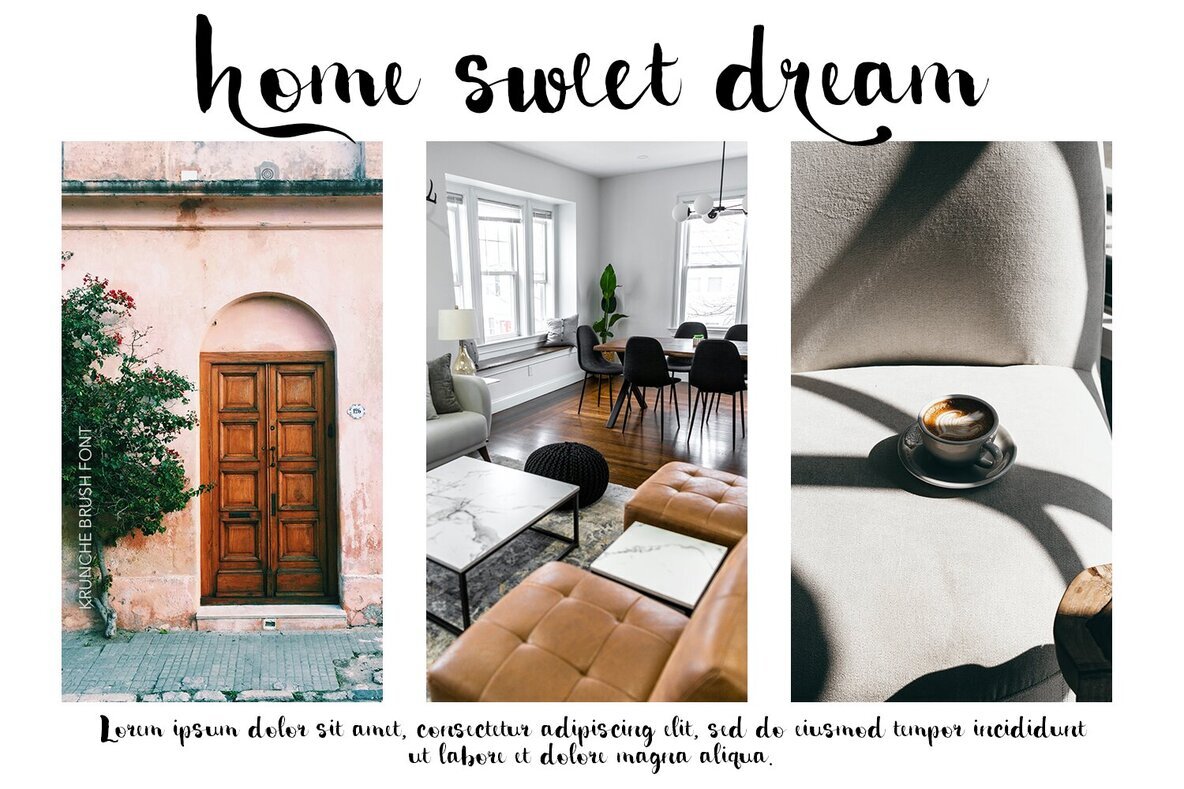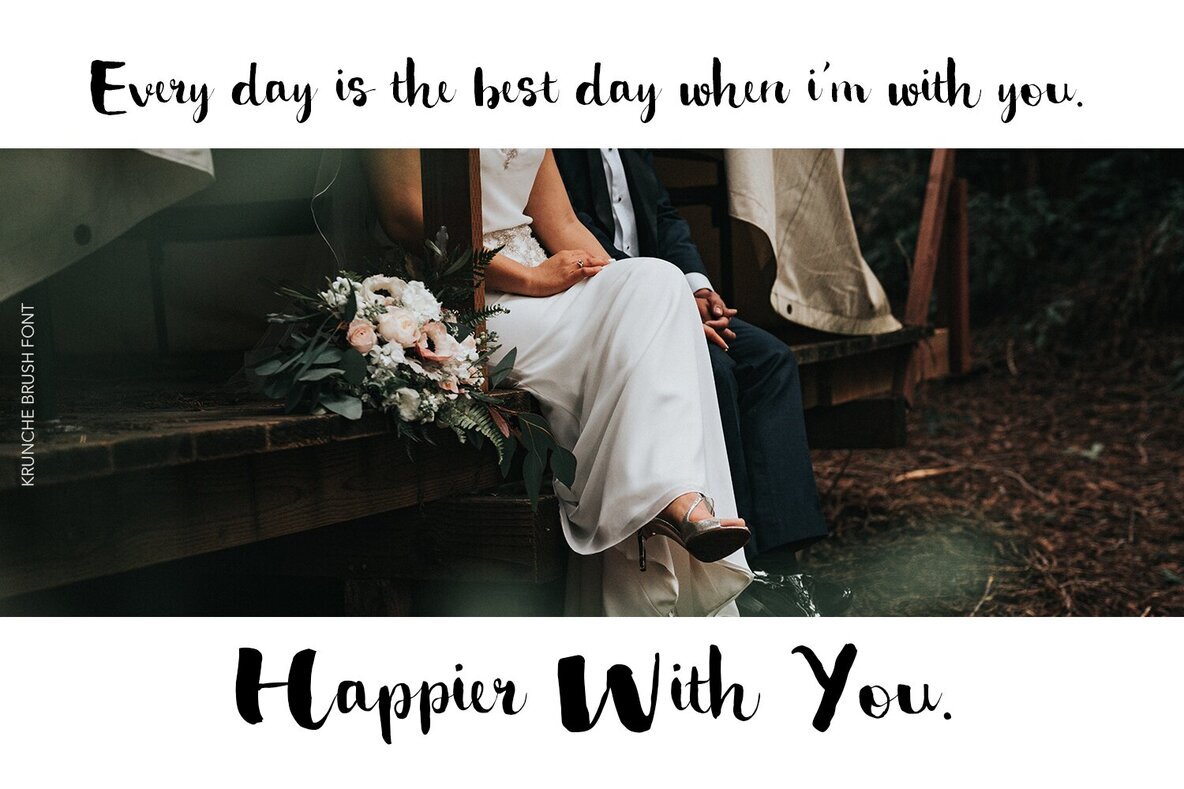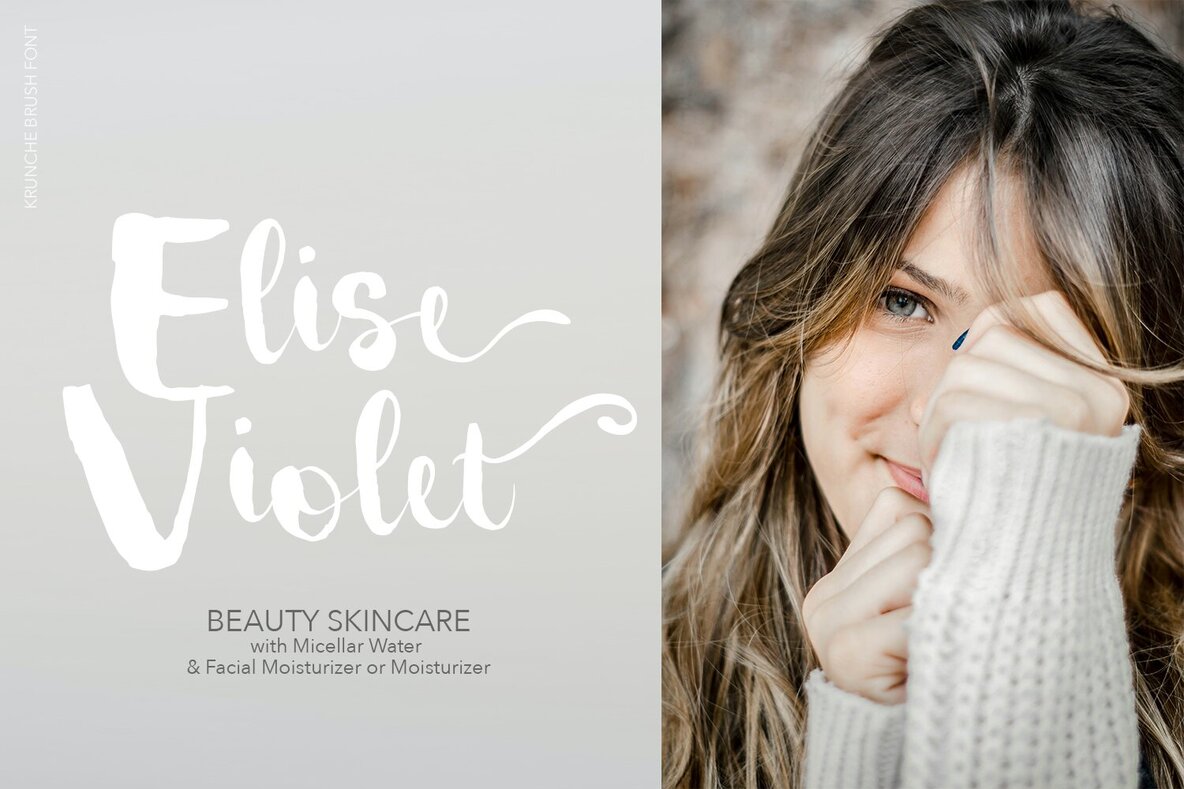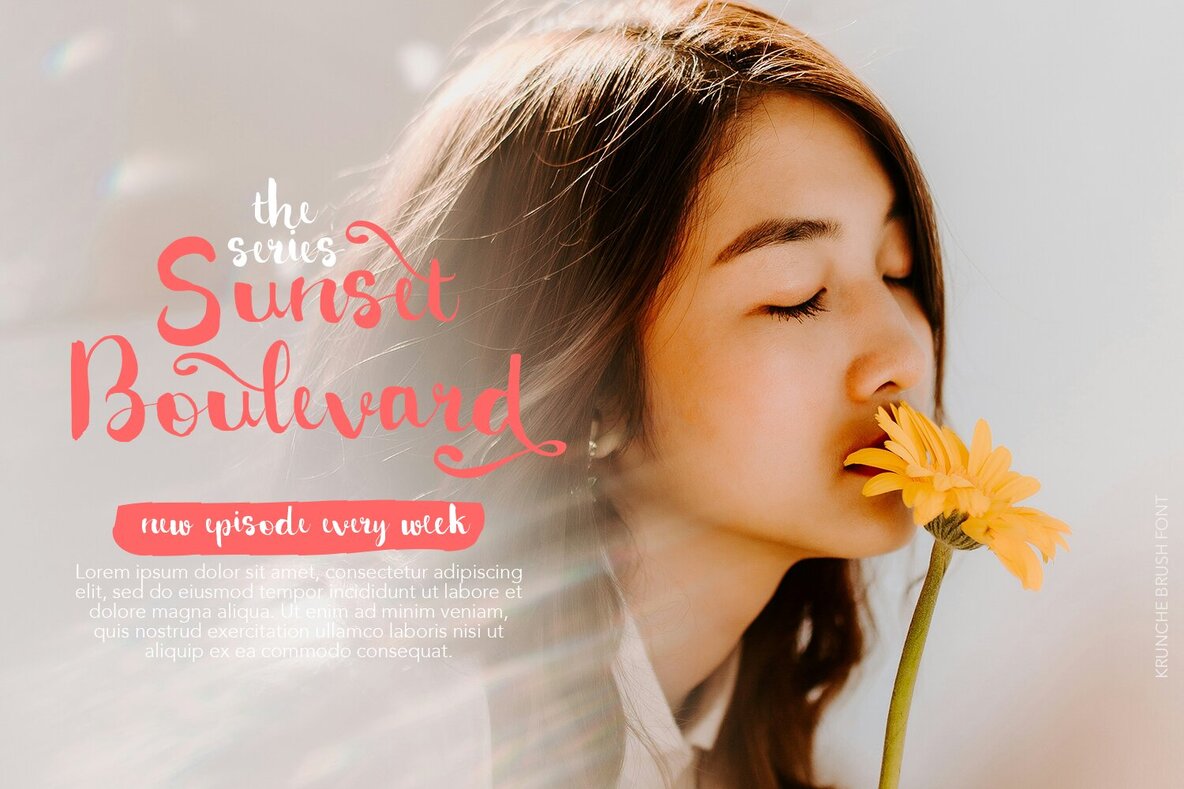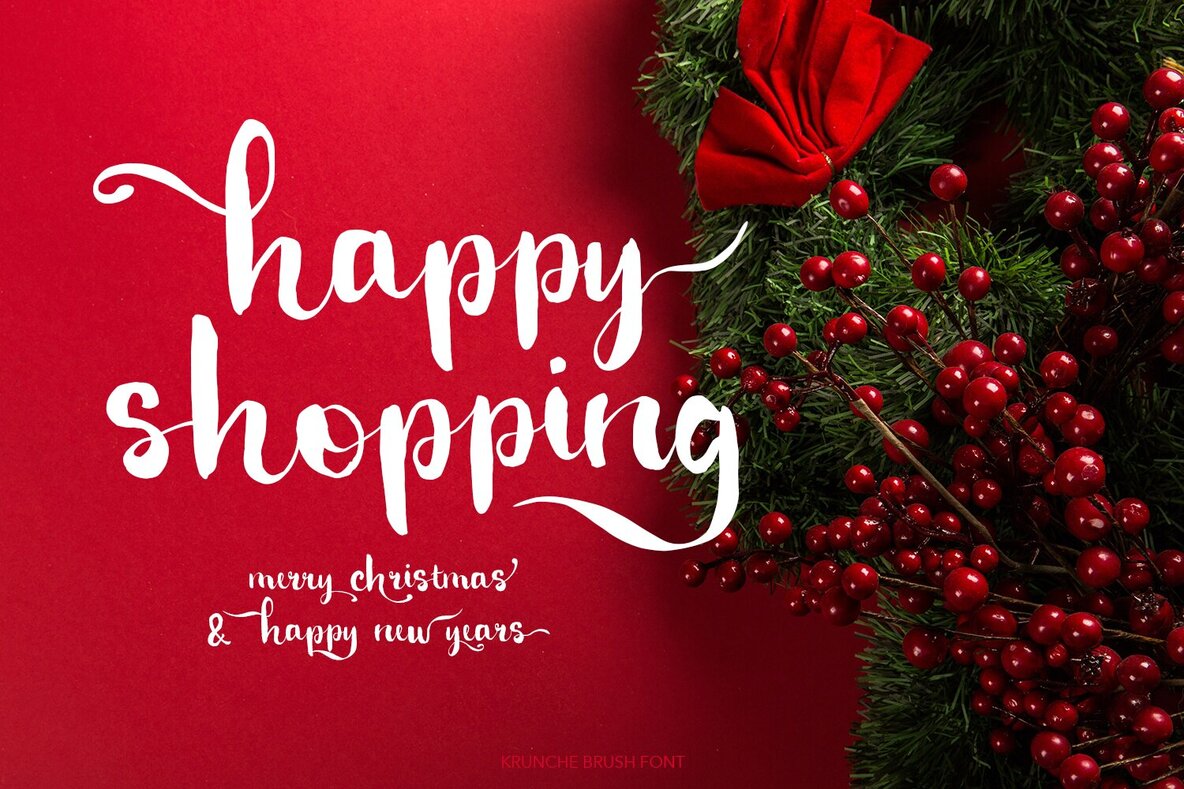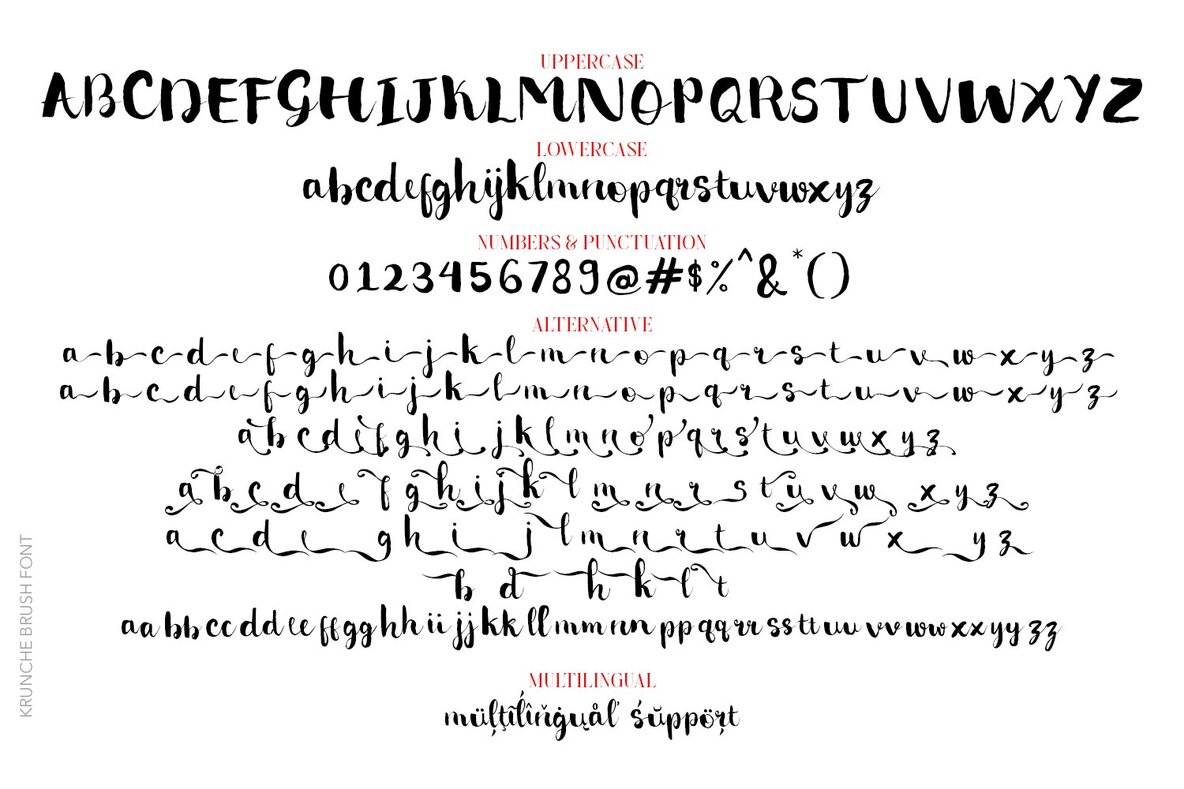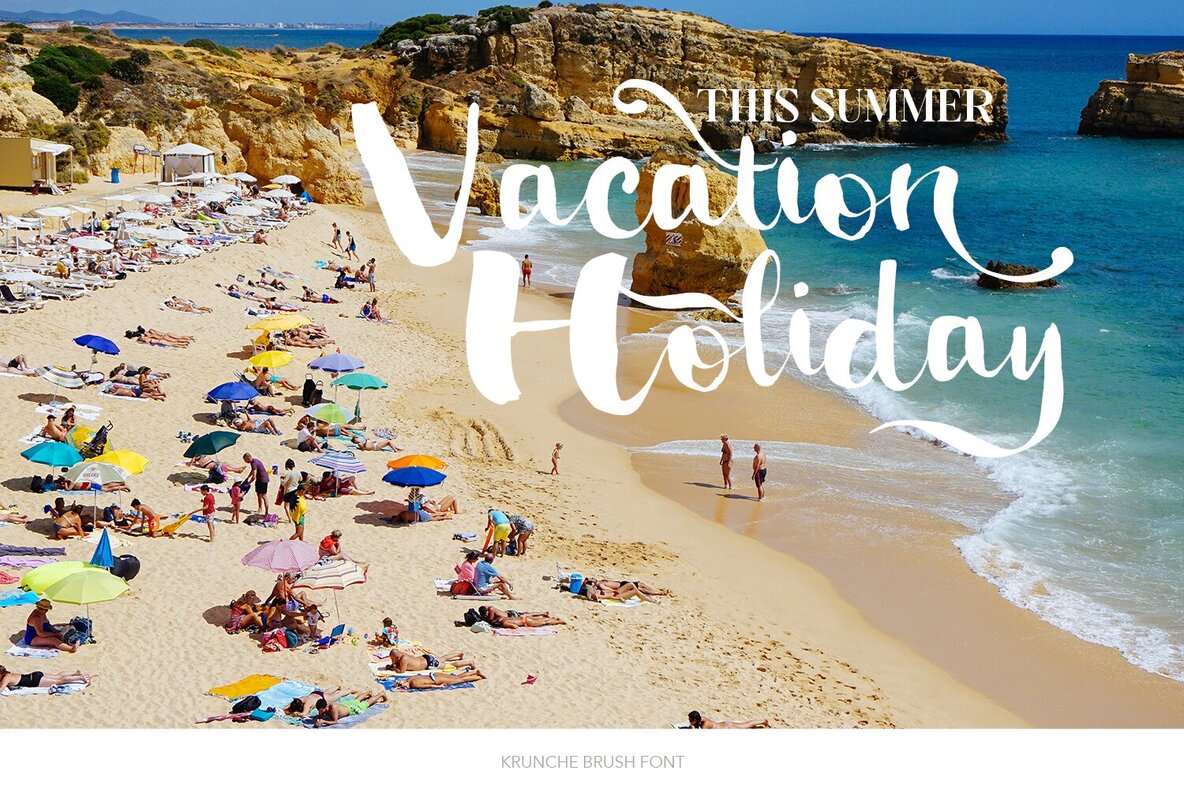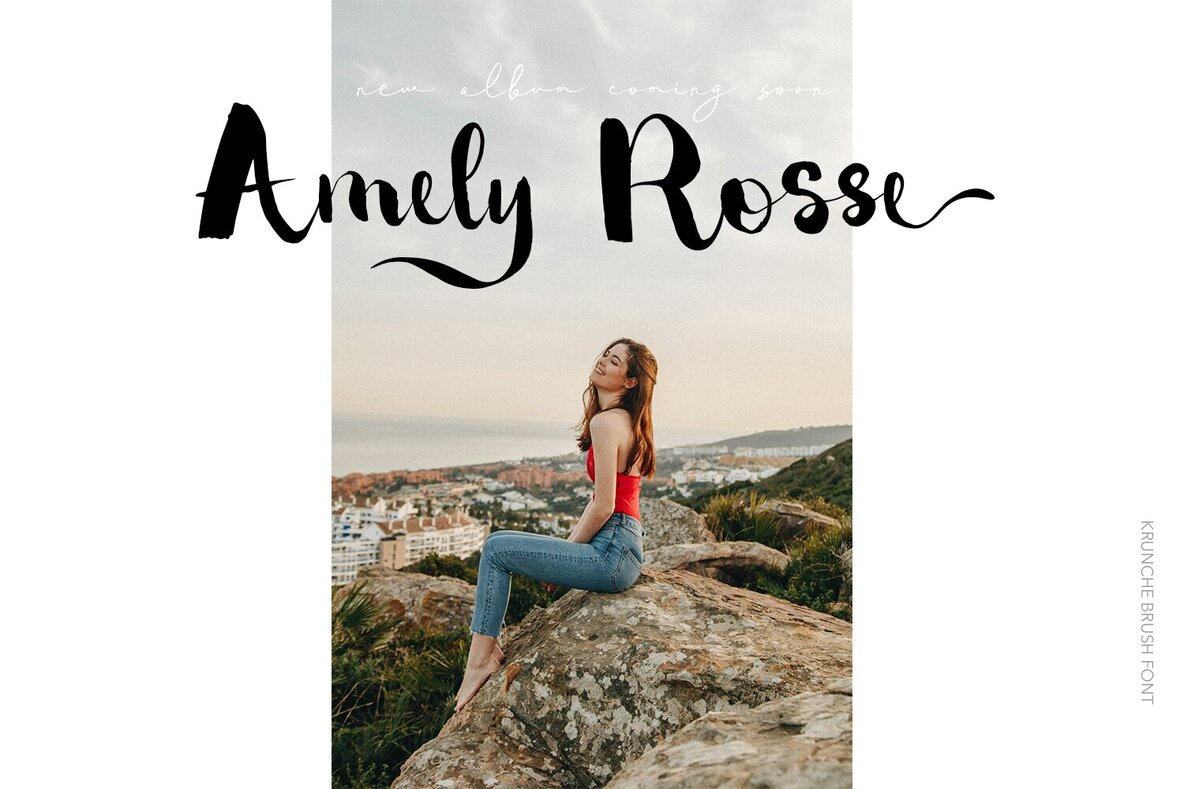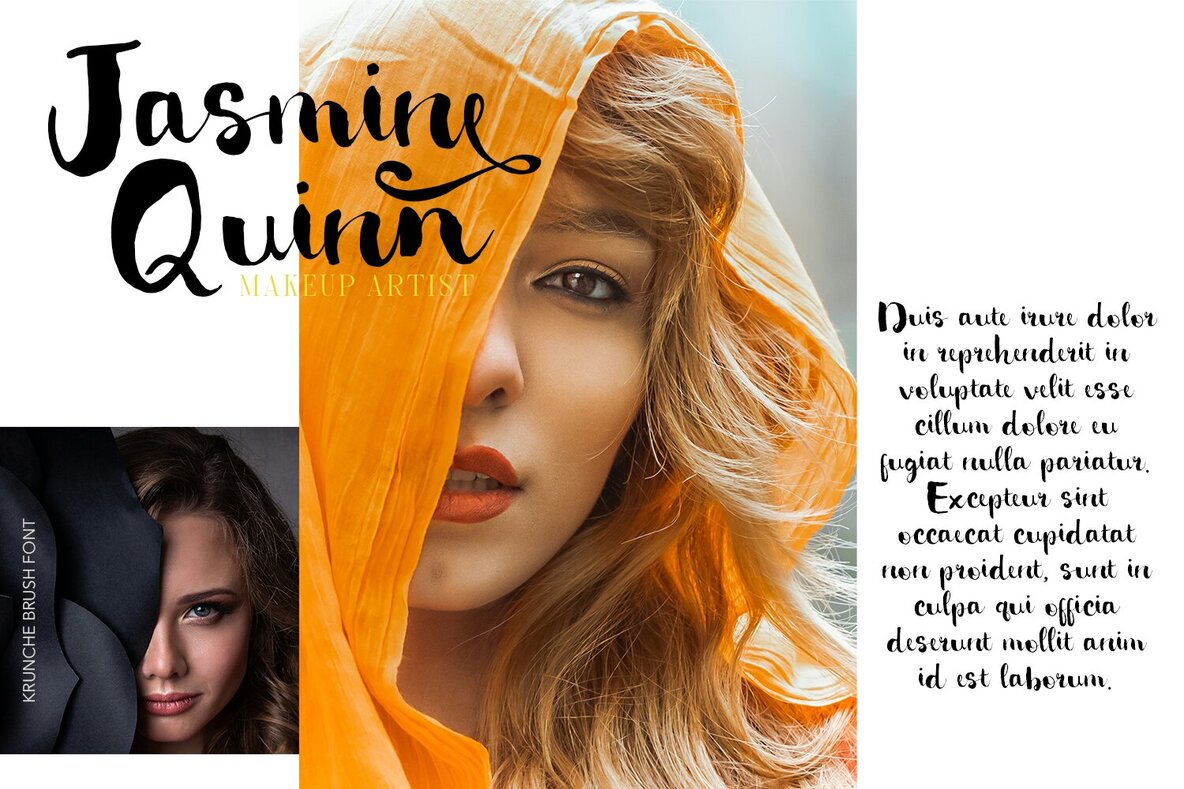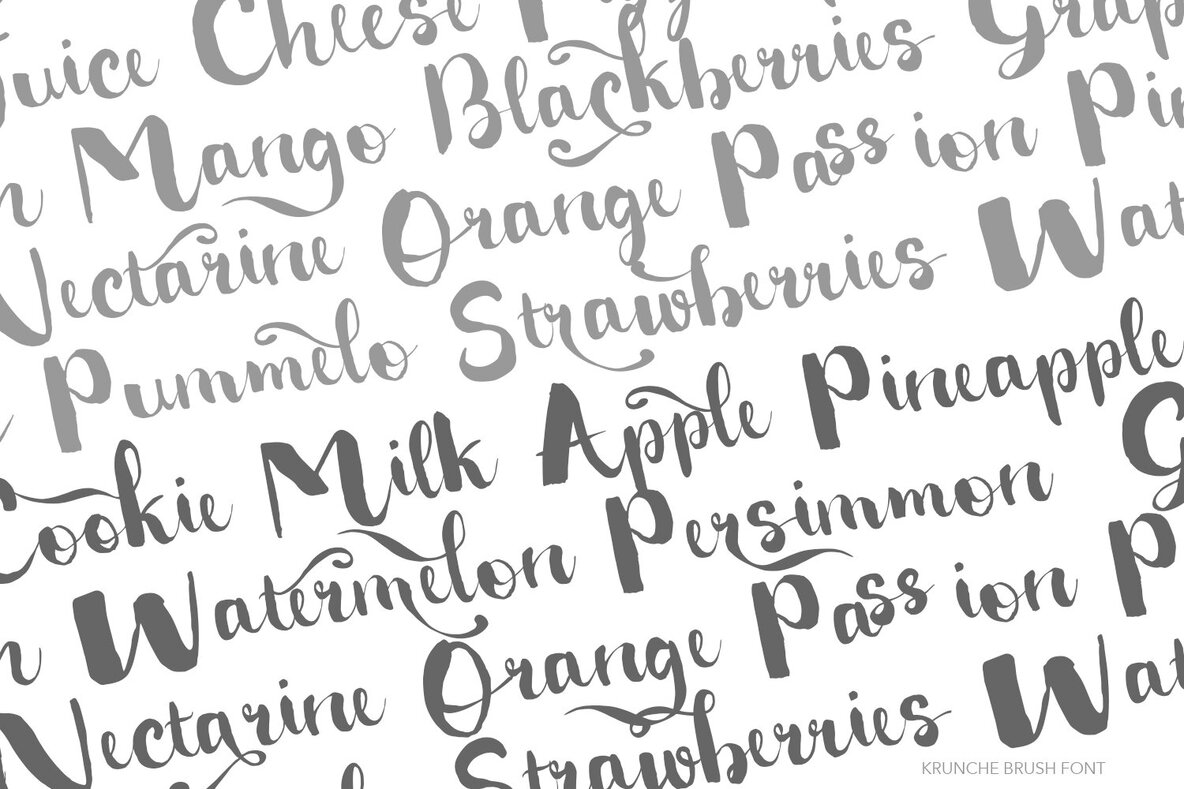
Krunche Font
Krunche is a realistic brush script designed to infuse a natural, hand-painted feel into your projects. This font includes a variety of alternatives, providing versatility and creative freedom for your design needs. Ideal for poster design, book covers, and merchandise, Krunche also shines in fashion campaigns, newsletters, branding, and advertising.
Whether you are working on magazines, greeting cards, album covers, or quote designs, Krunche delivers a dynamic and engaging touch. Its authentic brush strokes make it an excellent choice for adding a unique, handcrafted look to any project, ensuring your designs stand out with personality and flair.